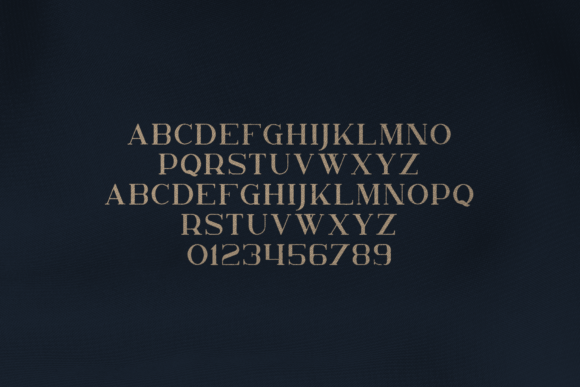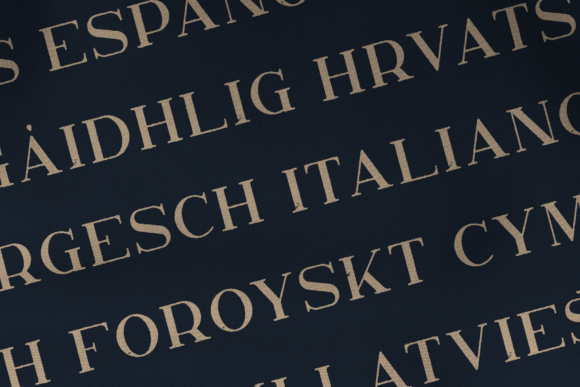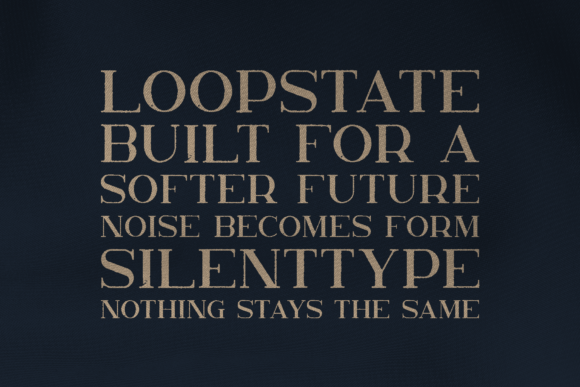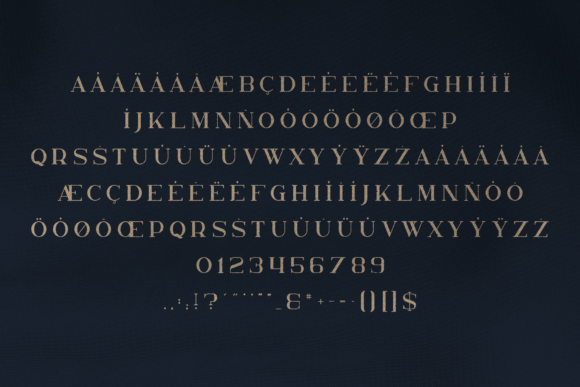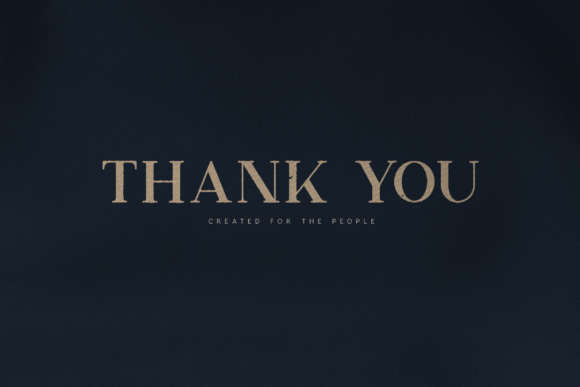
Introduction to Nelipot Font
Nelipot is an organic serif typeface that blends classic elegance with subtle, imperfect character.
Designed with soft irregularities and a refined structure, it brings warmth into traditional serif typography The result is a typeface that feels both timeless and human — structured, yet expressive.
Key Features of Nelipot Font